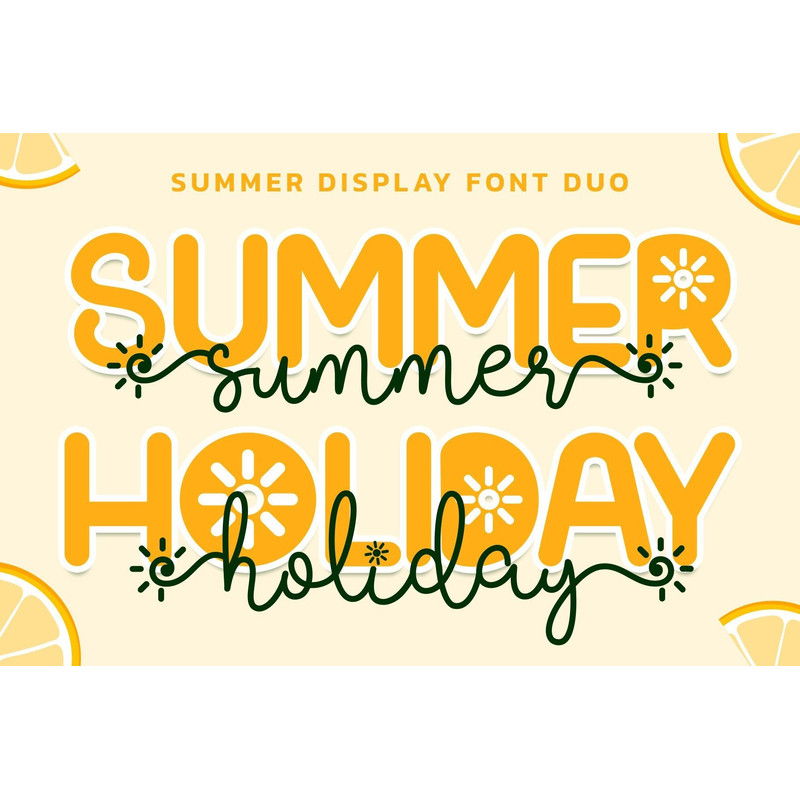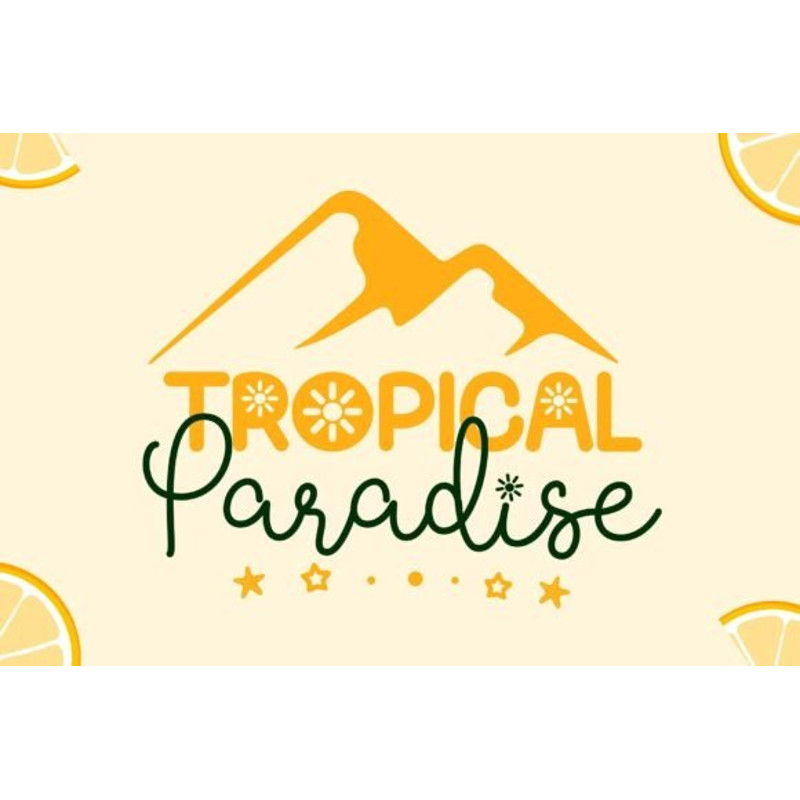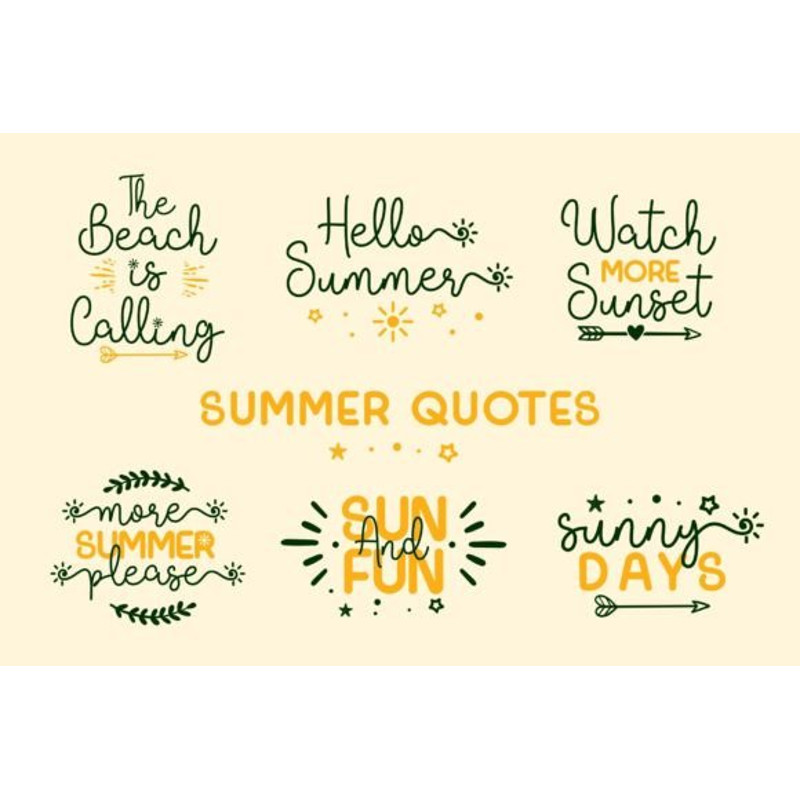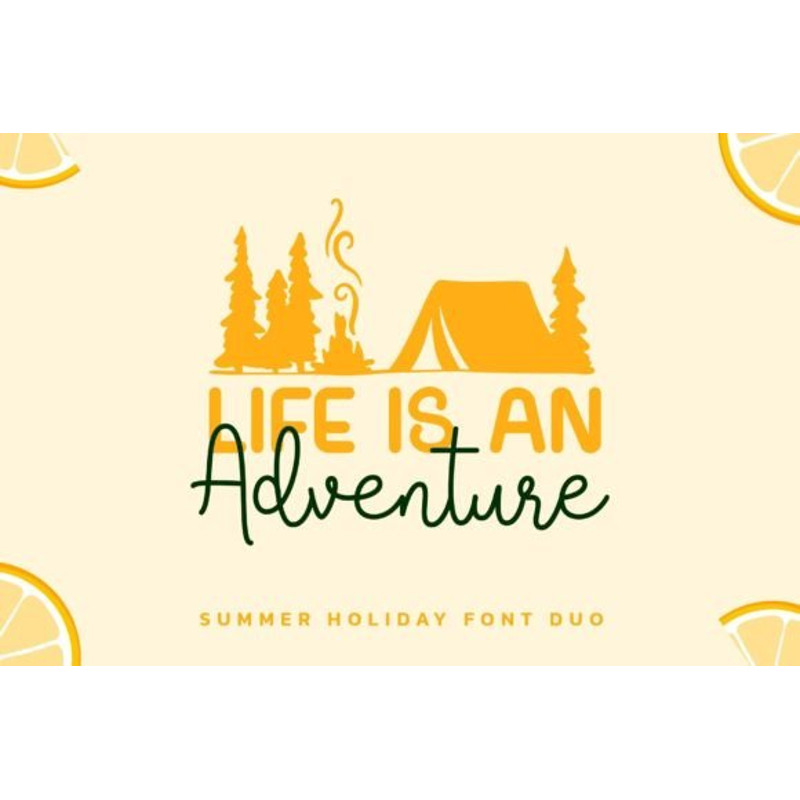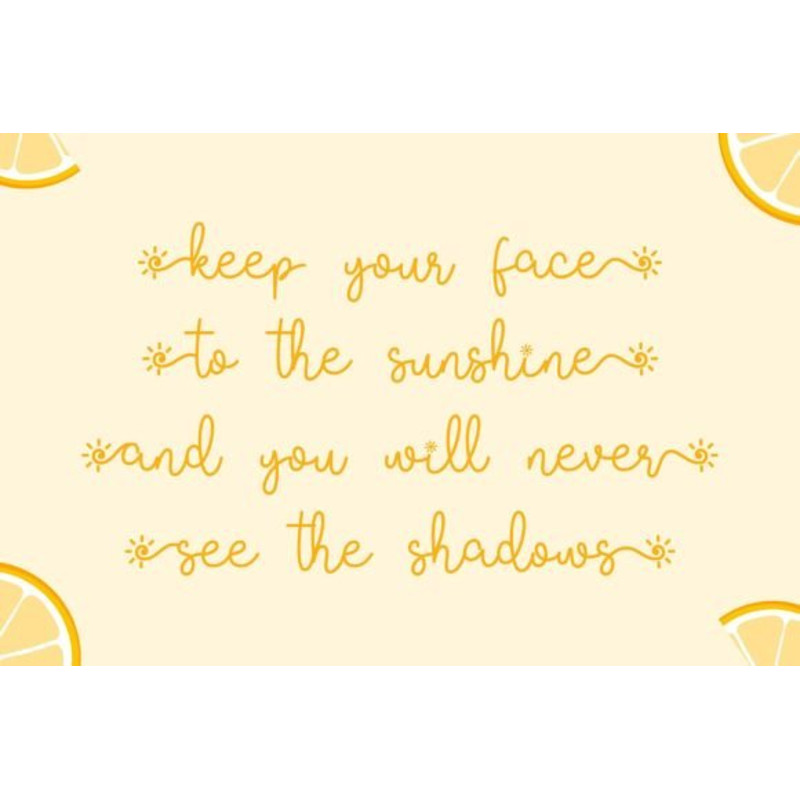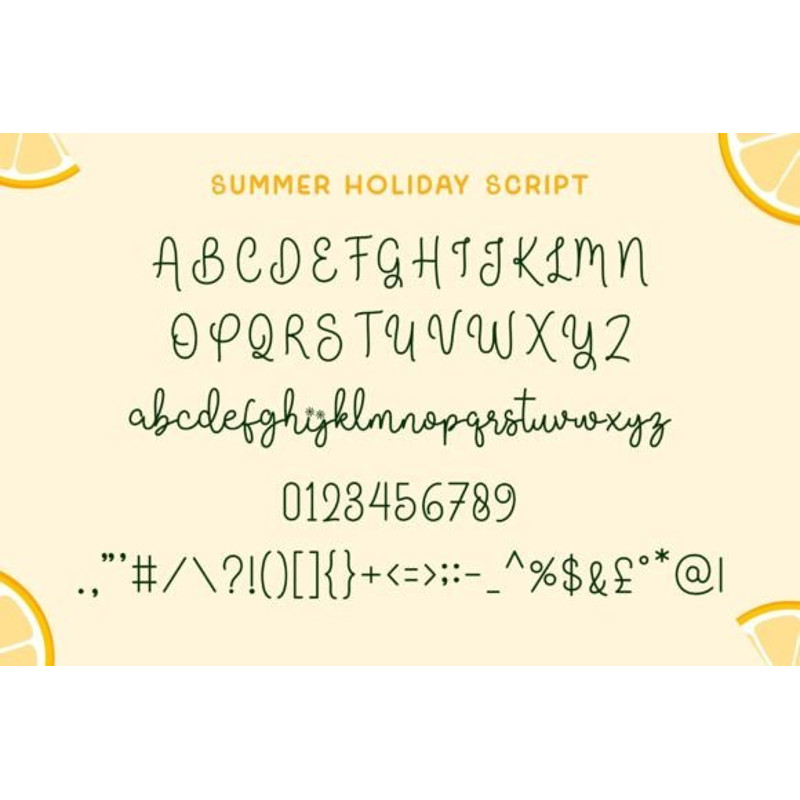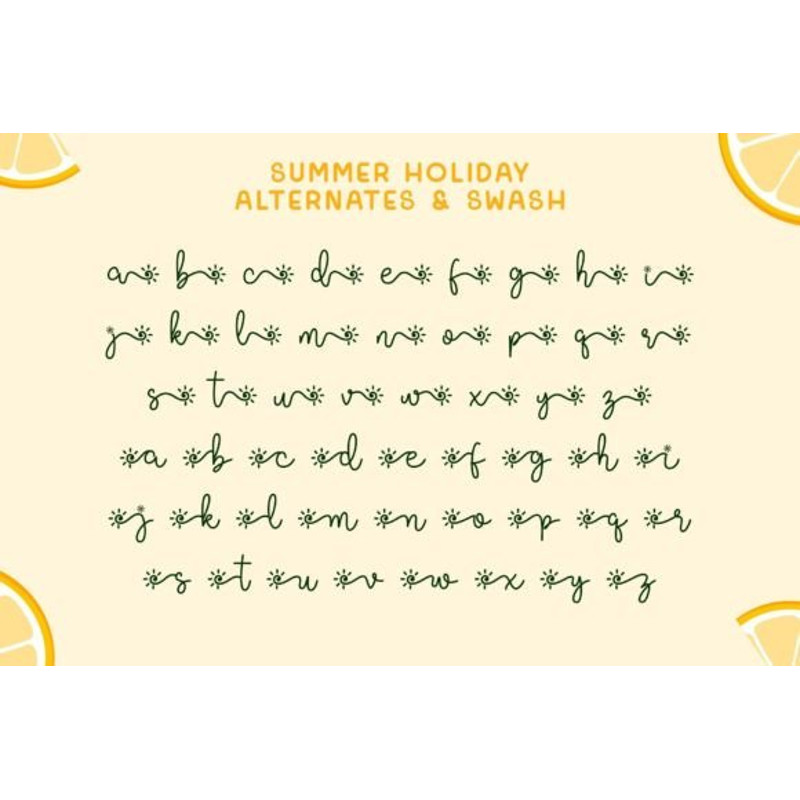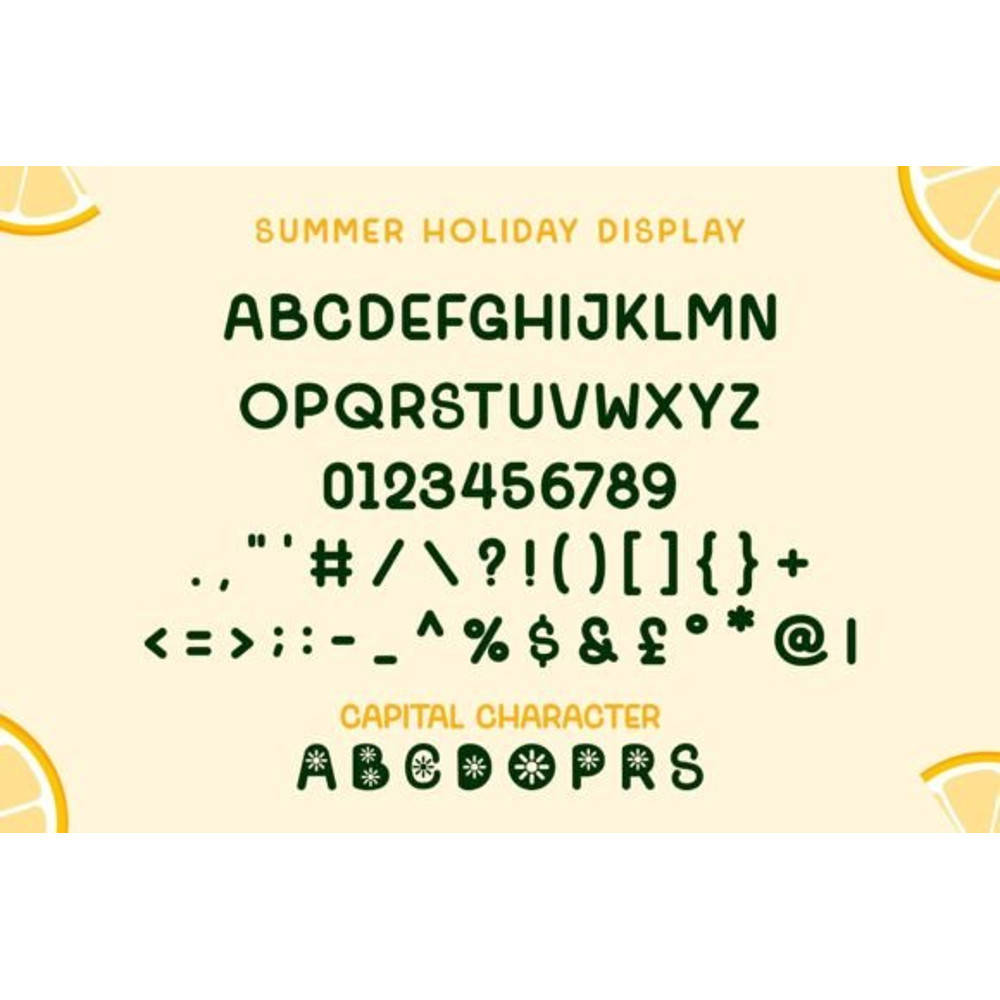
Summer Holiday is a fun and playful font duo with a stylish script and sunny display font. This typeface is inspired by Summer and is suitable for cute and attractive summer designs. This font is PUA encoded, which means you can access all of the glyphs and swashes with ease! Summer Holiday is suitable for t-shirt design, mug, promotion, craft design, and much more.